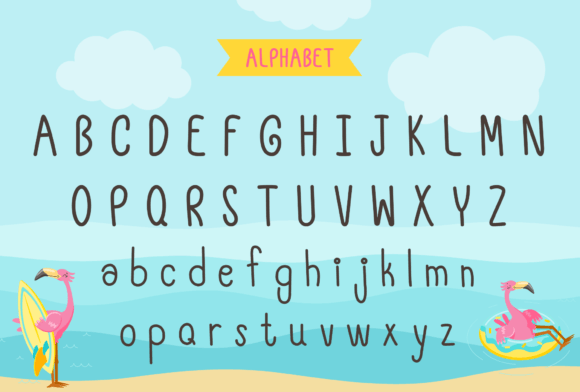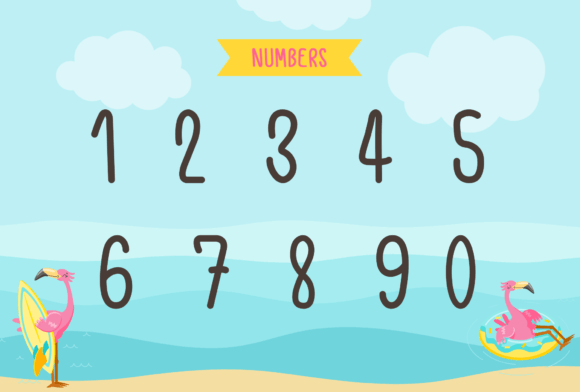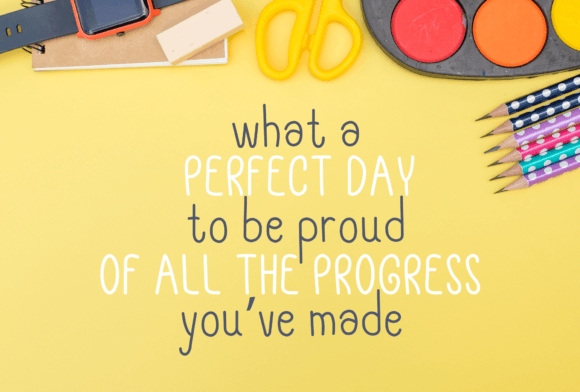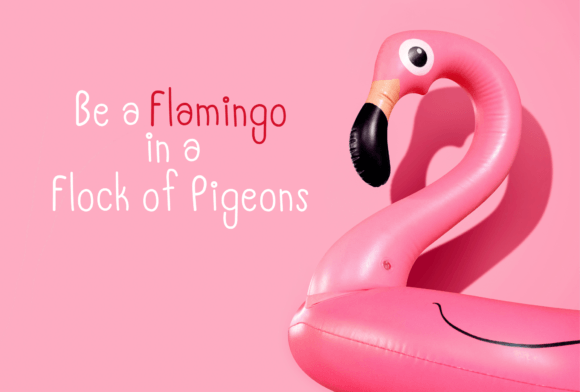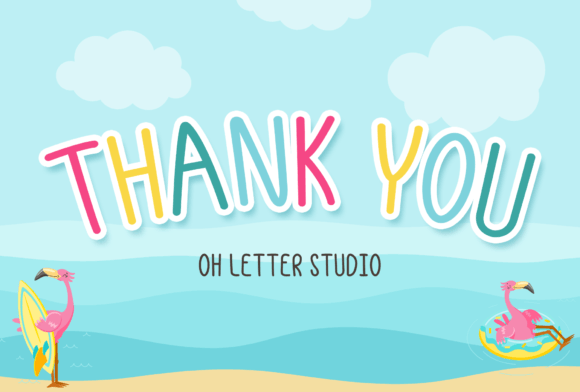
Introducing Flamingo Font: The Perfect Choice for Fun and Playful Designs
Are you looking for a font that can add a touch of whimsy and playfulness to your designs? Look no further than Flamingo Font! This adorable font is perfect for creating fun and engaging designs for children, crafts, and DIY projects. In this article, we’ll take a closer look at the Flamingo Font and explore its features, uses, and benefits.
What is Flamingo Font?
Flamingo Font is a display font that is characterized by its thin, cute, orderly, and cartoon-like appearance. The font’s unique design makes it perfect for creating eye-catching and engaging designs that are sure to capture the attention of your audience. Whether you’re designing for children or adults, Flamingo Font is sure to bring a smile to their faces.
Features of Flamingo Font
So, what makes Flamingo Font so special? Here are some of its key features:
- Thin and Cute: Flamingo Font has a slender and adorable design that makes it perfect for creating fun and playful designs.
- Orderly: Despite its playful appearance, Flamingo Font is surprisingly orderly and easy to read, making it perfect for use in a variety of design projects.
- Cartoon-like: The font’s cartoon-like design makes it perfect for creating designs that are fun, engaging, and perfect for children.
Uses of Flamingo Font
So, what can you use Flamingo Font for? The possibilities are endless! Here are some ideas to get you started:
- Children’s Designs: Flamingo Font is perfect for creating designs for children, such as posters, flyers, and brochures.
- Logos and Branding: The font’s unique design makes it perfect for creating logos and branding materials that are fun, engaging, and memorable.
- Packaging: Flamingo Font is also perfect for use in packaging design, adding a touch of whimsy and playfulness to your products.
- DIY Projects: Whether you’re creating crafty DIY projects or handmade products, Flamingo Font is the perfect choice.
Benefits of Using Flamingo Font
So, why should you choose Flamingo Font for your design projects? Here are some benefits:
- Unique Design: Flamingo Font has a unique design that will set your designs apart from the rest.
- Easy to Read: Despite its playful appearance, Flamingo Font is easy to read, making it perfect for use in a variety of design projects.
- Versatile: Flamingo Font can be used in a variety of design projects, from children’s designs to logos and branding.
- Fun and Engaging: The font’s playful design makes it perfect for creating fun and engaging designs that will capture the attention of your audience.
Tips for Using Flamingo Font
Here are some tips for using Flamingo Font in your design projects:
- Combine with Bright Colors: Flamingo Font looks especially great when combined with bright colors, so don’t be afraid to get creative!
- Use in Combination with Other Fonts: Flamingo Font can be used in combination with other fonts to create a unique and eye-catching design.
- Experiment with Different Sizes: Don’t be afraid to experiment with different font sizes to create a design that’s truly unique.
In conclusion, Flamingo Font is a fun and playful font that’s perfect for creating engaging and eye-catching designs for children, crafts, and DIY projects. With its unique design, ease of use, and versatility, Flamingo Font is a great choice for designers and crafters alike. So why not give it a try and see what amazing designs you can create?